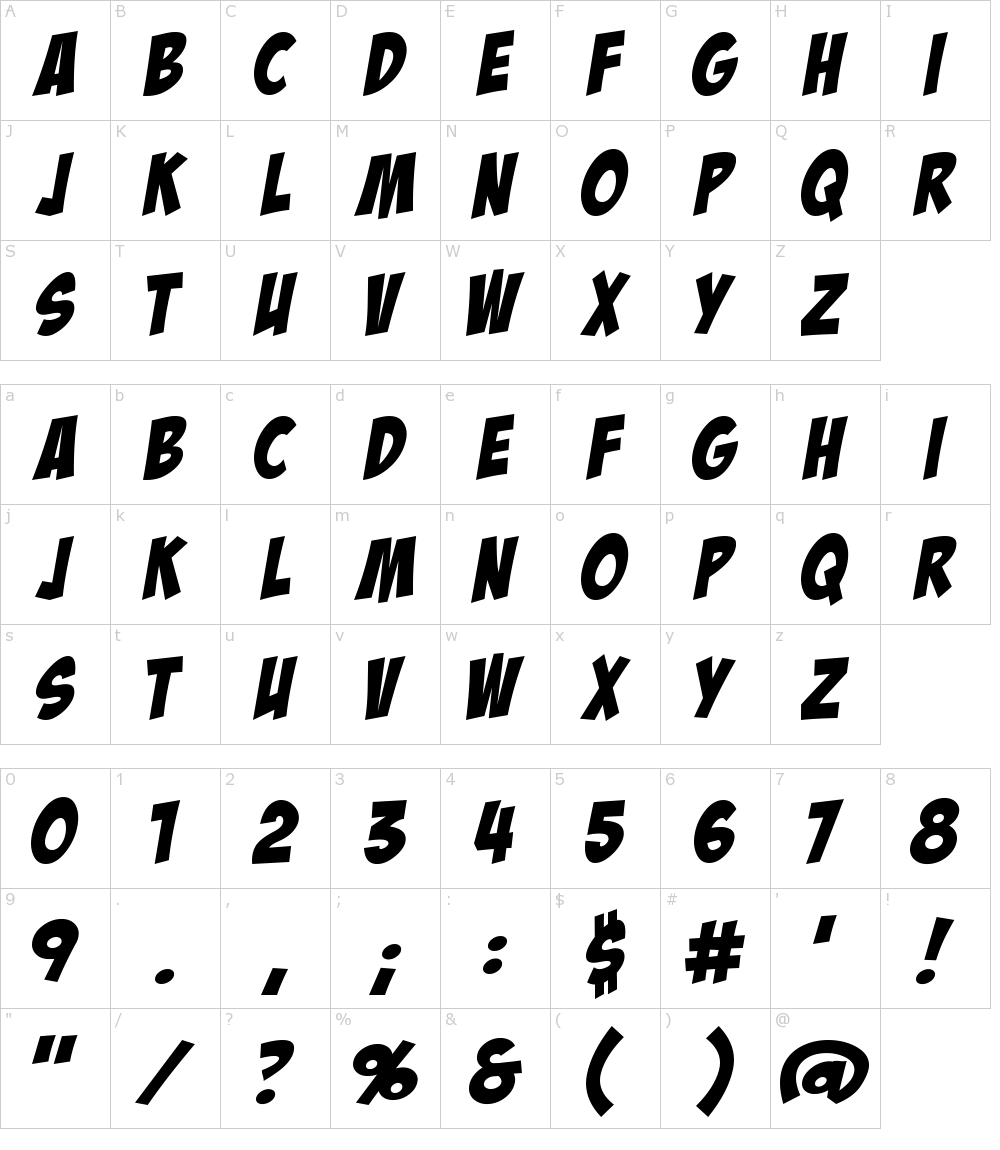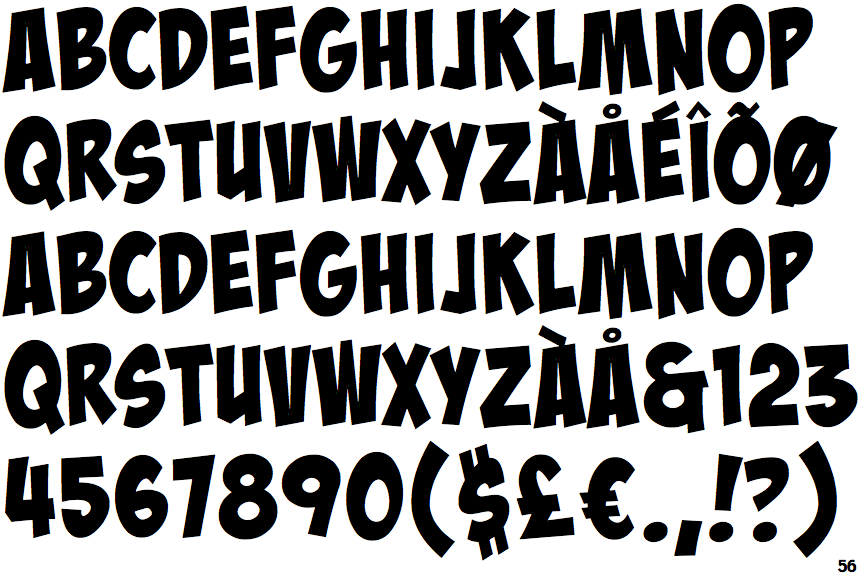
Badaboom is a fancy, comic font designed by blambot. We have a huge collection of around 72,000 truetype and opentype free fonts,. Badaboom is a simple, all round and clean display font.
Blambot has provided lettering and design for virtually. The badaboom bb font was designed by nate piekos. Badaboom font free download | fontswan home • display • comic badaboom font about badaboom font badaboom bb font is a comic style lettering and similar to luckiest guy.
This Typeface Is A Group Member Of The Fancy Typeface Family,.
Blambot is the foundry of typographer nate piekos and specializes in typefaces for use as lettering in both print and online comics. This typeface is a largely useable typeface in. This font is freeware for independent comic book creation and.
Badaboom font is a freeware font that was created for comic independent book creation. Badaboom is a fancy, comic font designed by blambot. Badaboom bb is a high quality comic font that is designed by blambot and is available for.